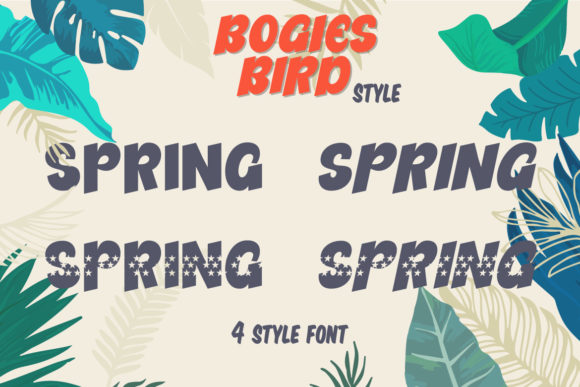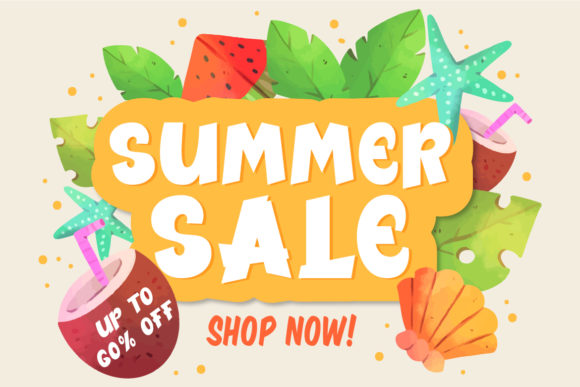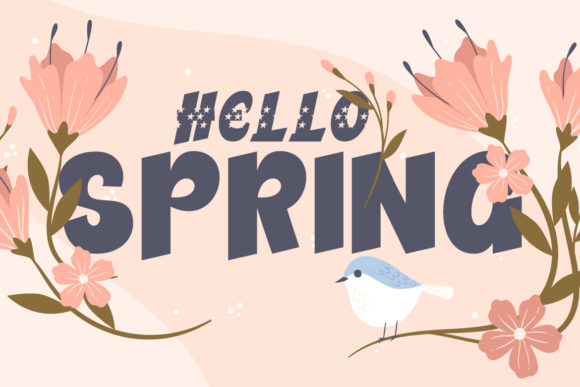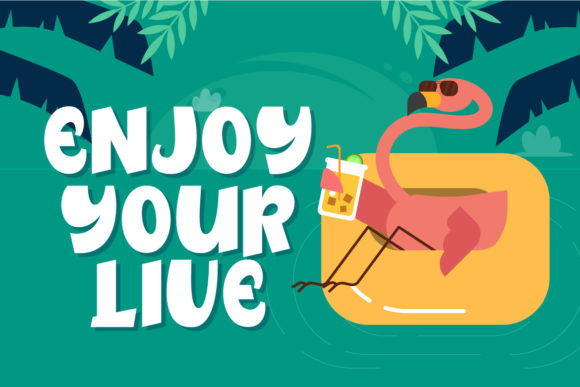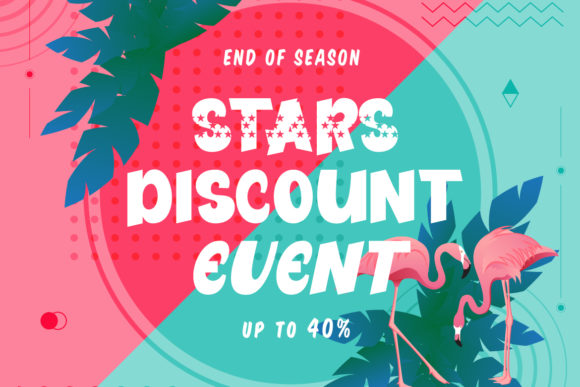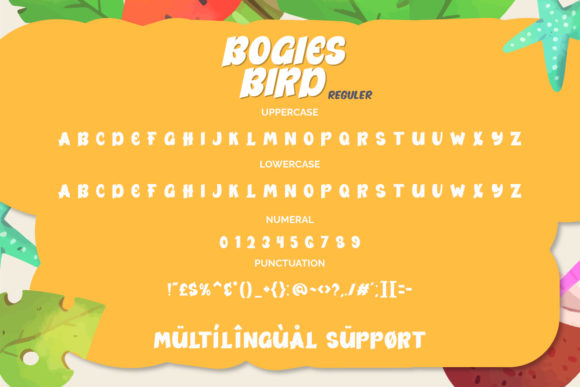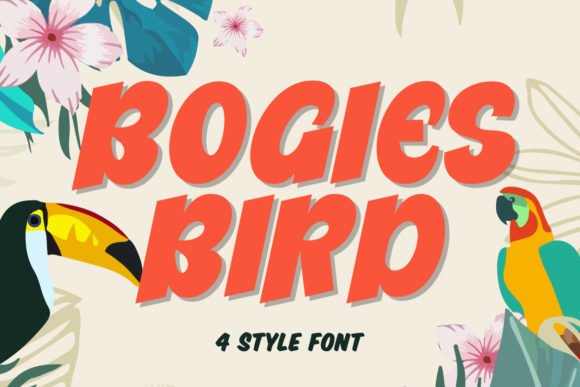
Bogies Bird Font: The Cute and Chunky Lettered Display Font You Need
Are you tired of using the same old fonts for your creative projects? Do you want to add a touch of whimsy and playfulness to your designs? Look no further than Bogies Bird Font! This adorable and chunky lettered display font is perfect for designers and crafters who want to make their ideas stand out.
What is Bogies Bird Font?
Bogies Bird Font is a unique and eye-catching font that is sure to capture attention. With its cute and chunky lettering, it’s perfect for a variety of creative projects, from posters and flyers to social media graphics and craft projects. The font is designed to be highly legible, even at large sizes, making it ideal for display purposes.
Features of Bogies Bird Font
• Cute and Chunky Lettering: The font features adorable and chunky lettering that is sure to add a touch of whimsy to your designs.
• Highly Legible: The font is designed to be highly legible, even at large sizes, making it perfect for display purposes.
• Unique and Eye-Catching: The font’s unique and eye-catching design makes it sure to capture attention and set your designs apart.
• Perfect for Creative Projects: The font is perfect for a variety of creative projects, from posters and flyers to social media graphics and craft projects.
Benefits of Using Bogies Bird Font
• Adds a Touch of Whimsy: The font adds a touch of whimsy and playfulness to your designs, making them more engaging and fun.
• Sets Your Designs Apart: The font’s unique and eye-catching design makes it sure to set your designs apart from the crowd.
• Perfect for Branding: The font is perfect for branding projects, such as logos and business cards, where you want to make a lasting impression.
Examples of Bogies Bird Font in Action
Bogies Bird Font can be used in a variety of creative projects, such as:
• Posters and Flyers: Use the font to create eye-catching posters and flyers that are sure to grab attention.
• Social Media Graphics: Use the font to create social media graphics that are fun and engaging.
• Craft Projects: Use the font to add a touch of whimsy to your craft projects, such as handmade cards and gift tags.
• Logos and Branding: Use the font to create unique and eye-catching logos and branding materials.